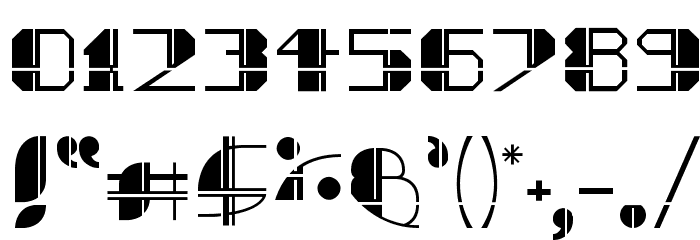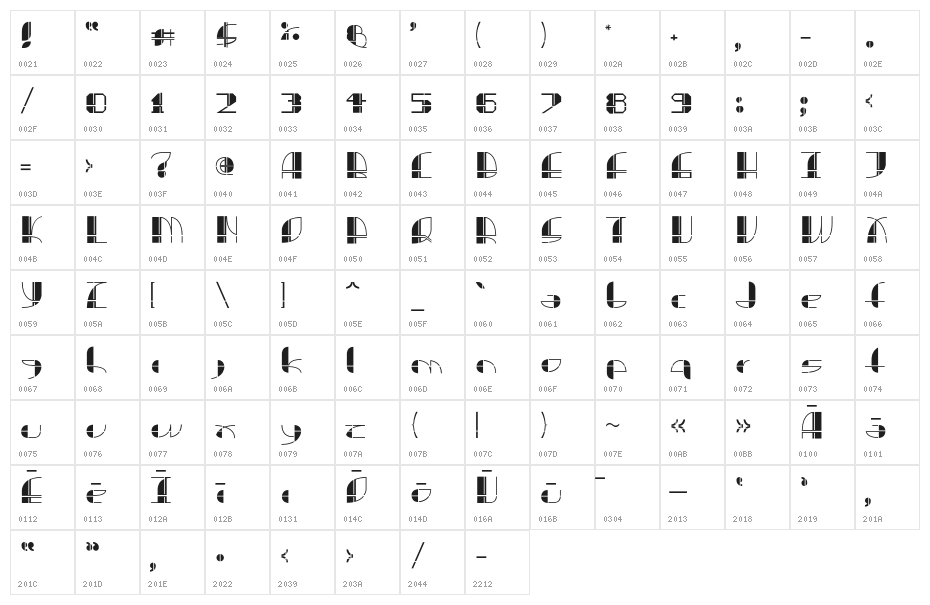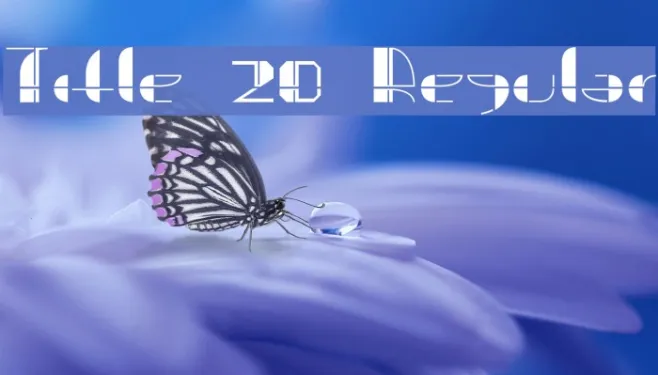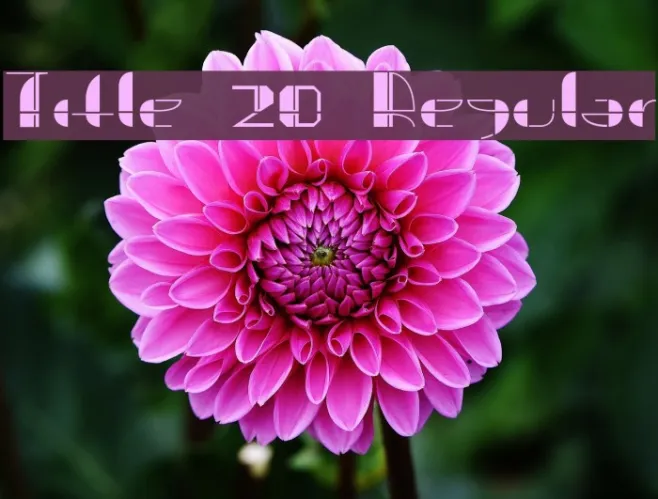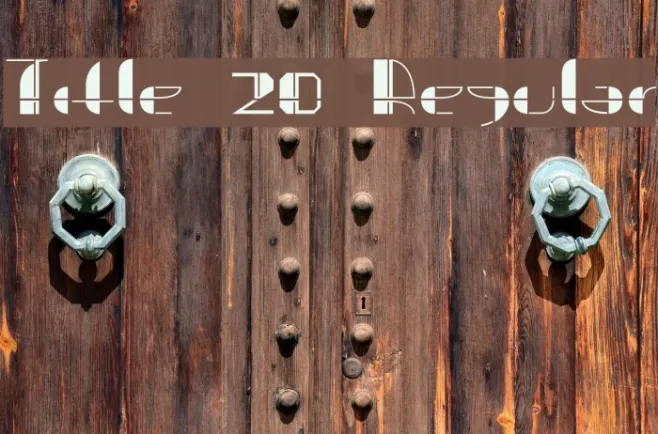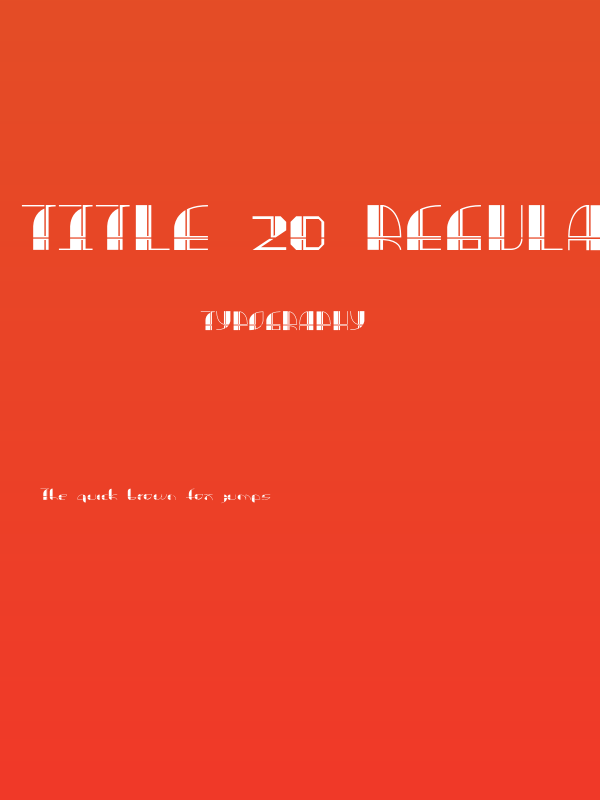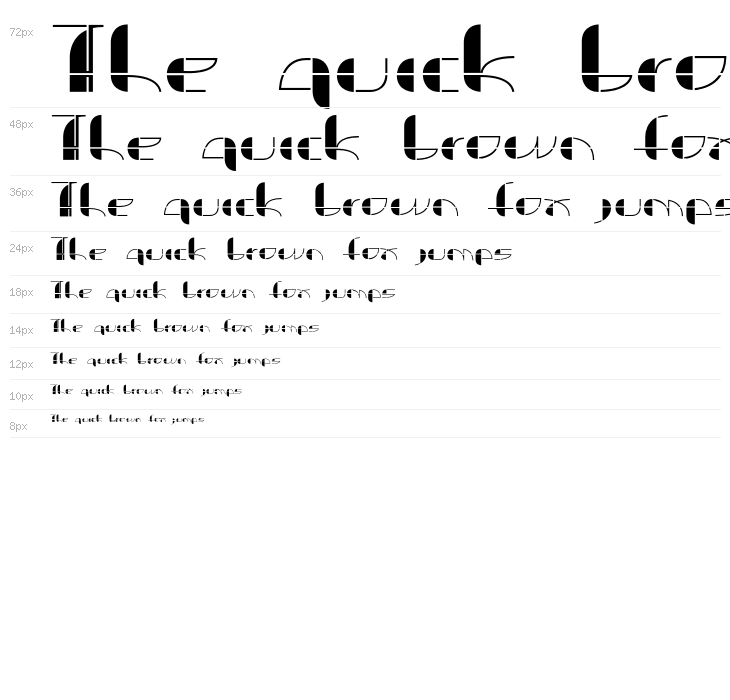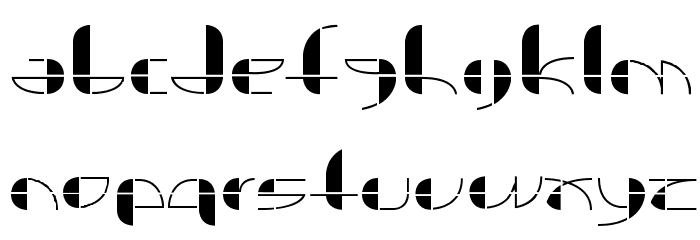
Title 20 Regular Font
Title 20 Regular Description
This font features a unique and modern design with a geometric and futuristic aesthetic. The characters are constructed with a combination of bold, solid strokes and thin, delicate lines, creating a high contrast that draws attention. The uppercase letters are particularly striking, with a blocky, angular appearance that is both bold and stylish. The lowercase letters maintain the same geometric style but with a slightly softer touch, providing a nice balance. Numbers and special characters follow the same design principles, ensuring consistency across the font. This font's distinctive style makes it ideal for projects that require a contemporary and eye-catching look.